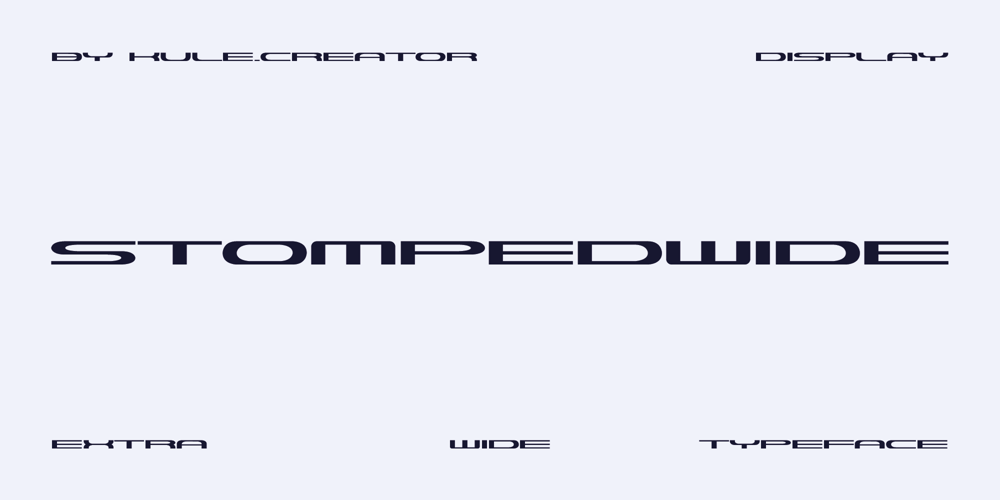
Stompedwide Font Family was designed by Piotr Kulesza and published by KuleType. Stompedwide contains 2 styles and family package options. Stompedwide is a modern/futuristic and minimal looking typeface that surely will give your designs unique look and catch the eye of the reader. It works very well in projects such as logos, banners, magazine headlines. Since It’s a display font It works best at big scale and It’s not suitable for longer texts.It pairs nicely with modern, geometric fonts such as Montserrat.2 weights available